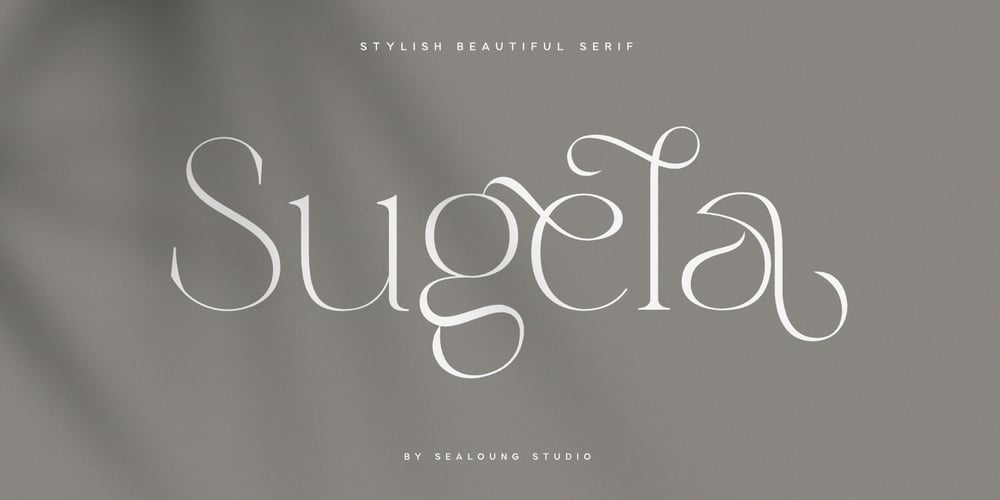
Sugela Font Family was designed by Saiful Anwar and published by Sealoung. Sugela contains 1 styles and family package options. Sugela is a Classy New Beautiful Serif FontThe serifs that we made specifically for the needs of elegant branding, with additional ligatures and alternates in a more feminine and unique form will be ready to add value to your brand. It’s great to take advantage of designers or product owners who need a solution to make their designs look more classy and modern.This font is specially designed for fashion-themed projects, perfectly suitable for creating elegant, chic, lifestyle designs such as logos, titles, magazines, and more.Sugela serif font is ready with:- Any option to get creative variations with unique letters- Preview as inspiration what you can do with Sugela font- Ready with Lowercase and Uppercase charactersHope you enjoy our fonts and if you have any questions feel free to message me & I’m happy to help ๐